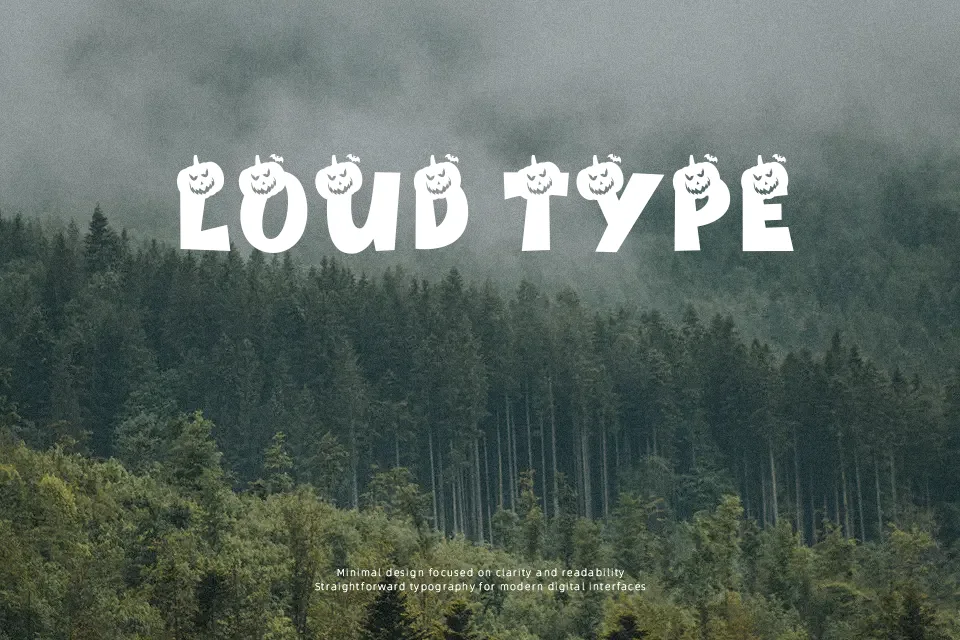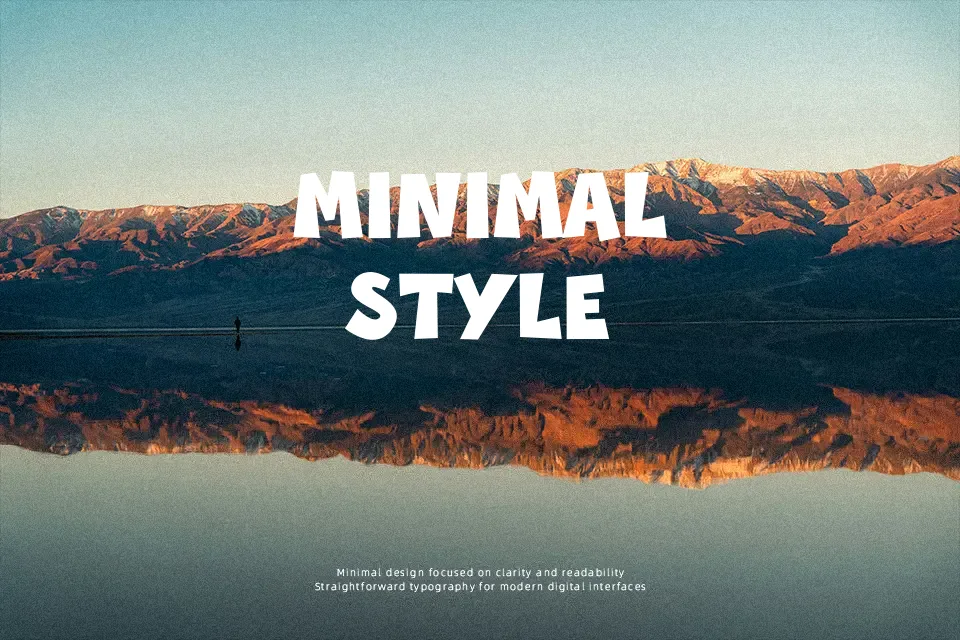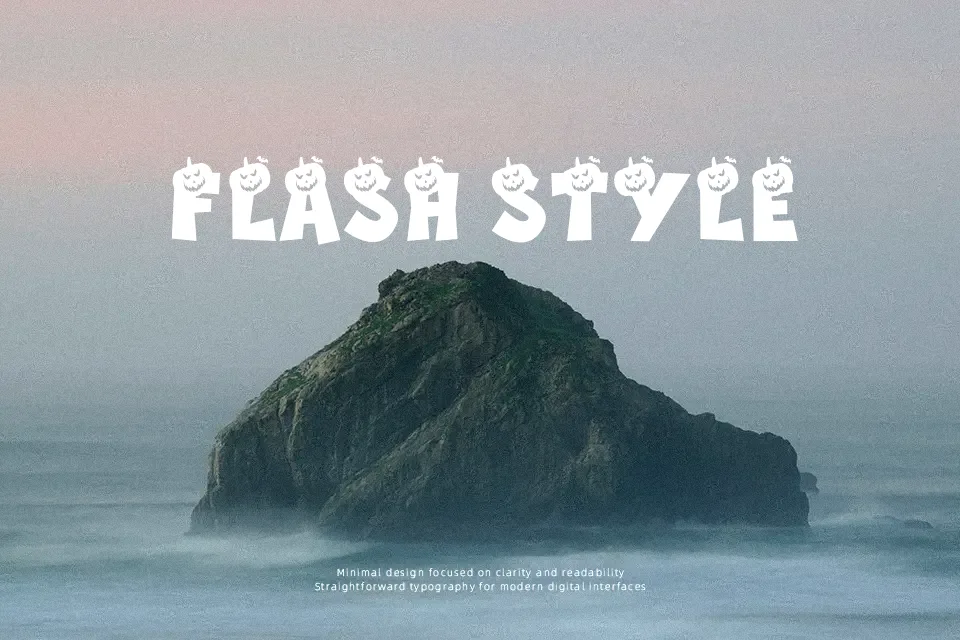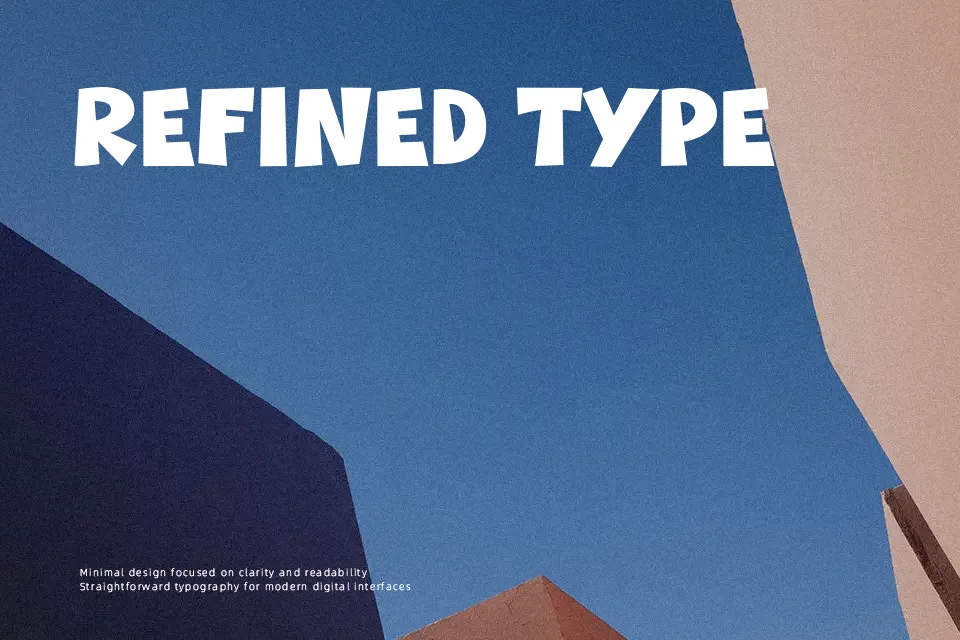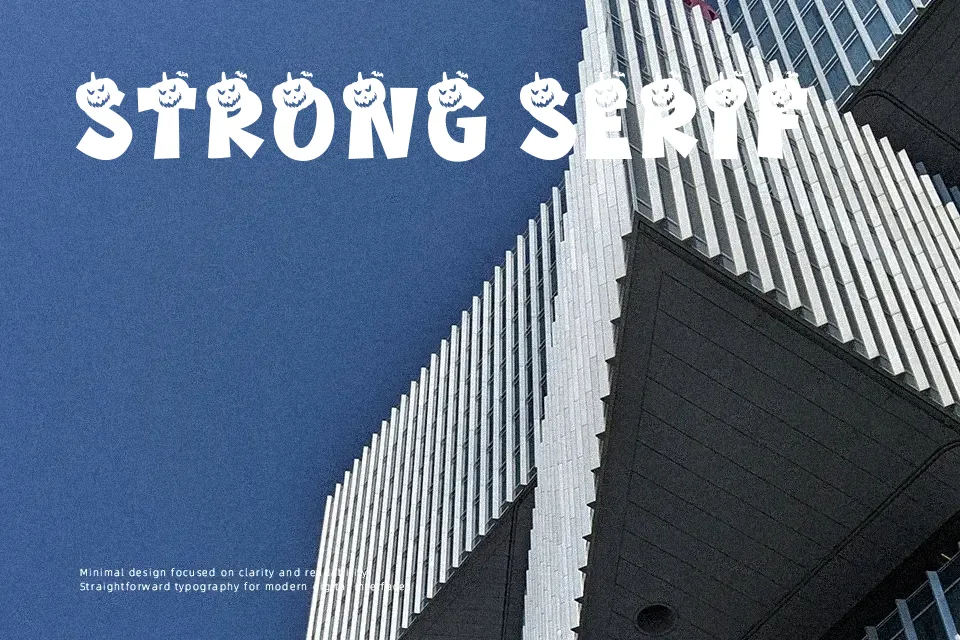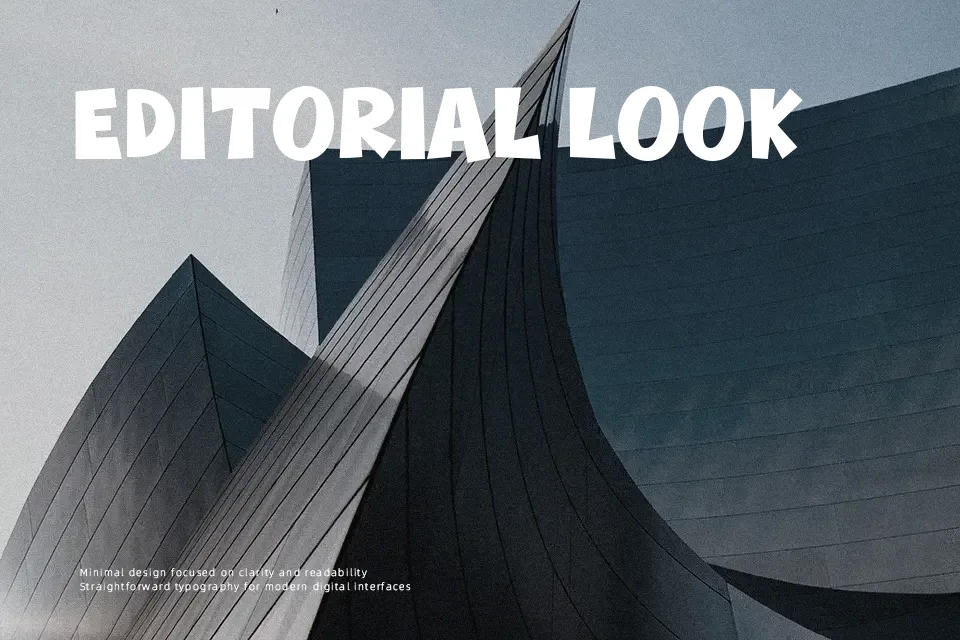
Bagonk Font
Designed by Kong Font
Bagonk leans into thick, bouncy strokes and irregular outlines that feel hand-drawn and slightly messy, giving headlines a lively, Halloween cartoon vibe. Letters sit with relaxed spacing and uneven curves, so the text looks energetic rather than tidy or precise. This makes it work well for seasonal posters, trick-or-treat event banners, costume party invitations, and playful branding for kids’ products that need a fun, spooky twist. However, its exaggerated shapes and busy forms quickly become tiring in long paragraphs or serious corporate materials, and it loses clarity at very small sizes. Use Bagonk when you want a cartoonish, Halloween-flavored headline; avoid it when readability and professionalism are more important than character.
Halloween event posters
kids’ party invitations
playful holiday logos
seasonal social media headers
minimalist brand identities
small UI labels or captions
Perfect for halloween, headline, and kids, with a artistic and cartoon style.